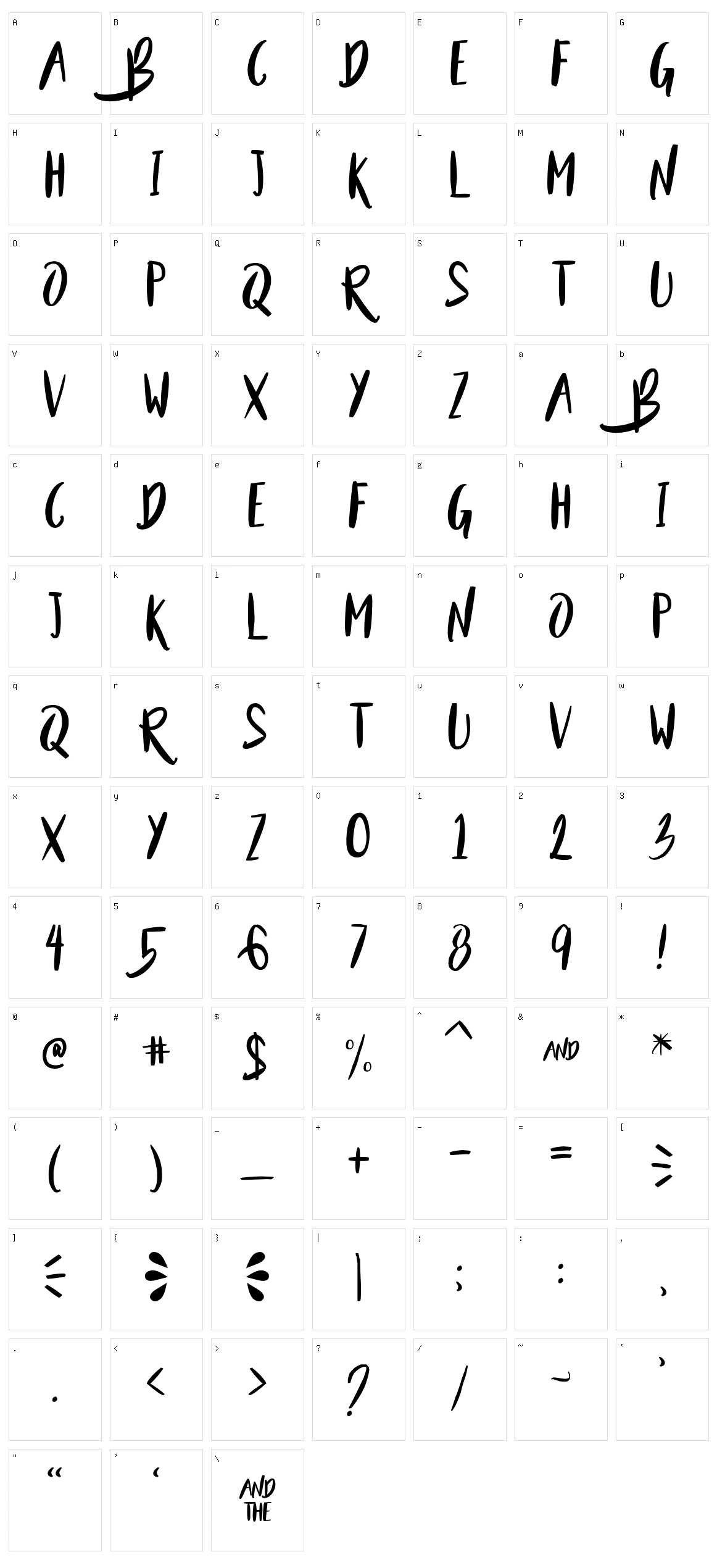
The free font Beauty and the Beast is carefully designed by Francis Studio, showcasing a thoughtful balance of creativity and usability and falls under the Script font style. When you download the ZIP file, it contains only 2339.28 KB of font files, making it lightweight and quick to download. Please review the license details below to understand permitted usage and distribution rights. If license information is not available, we recommend using this font for personal projects only or contacting the author directly for commercial usage permissions.
BEAUTY AND THE BEAST